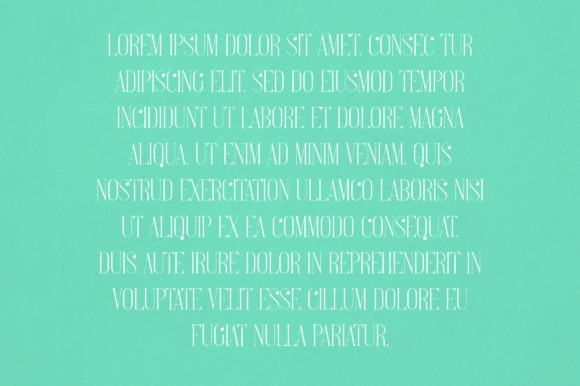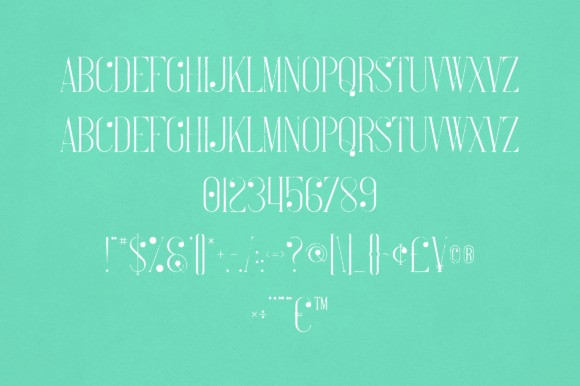
Noelle Font
Noelle Font is an elegant and versatile display font that will make your typography truly unique! It will enchant every logo, branding, headline, or plain text!
Classification: Display Fonts, Serif Fonts, Stencil Fonts